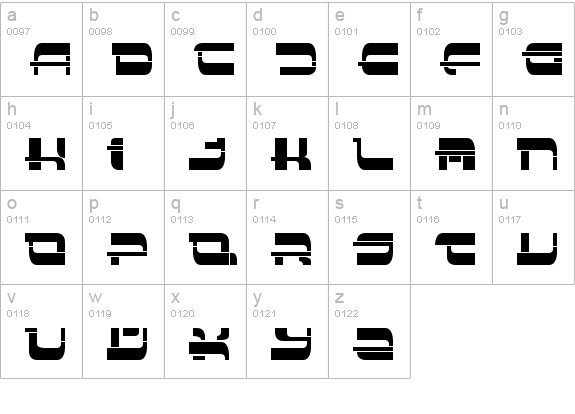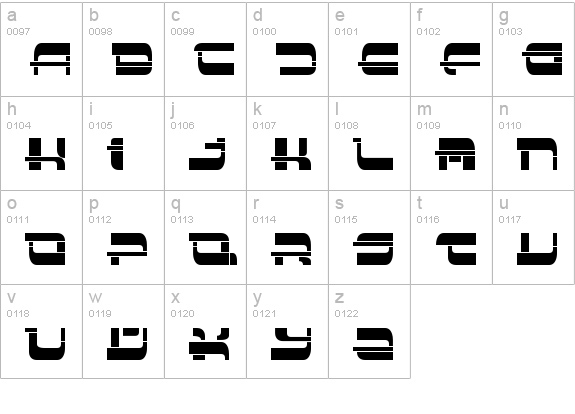
Insert 3 Font Details
Insert 3 font is a versatile and eye-catching typeface that will bring a touch of modernity to any design project. With its clean lines and bold style, this font is perfect for headlines, logos, posters, and more. Whether you're designing a website or creating a promotional banner, Insert 3 font will make a lasting impression. The best part? Insert 3 font is completely free! That's right, you can download this amazing font for absolutely no cost at FontsMarket.com. With just a few clicks, you'll have access to a high-quality typeface that will take your designs to the next level. Not only is Insert 3 font visually appealing, but it is also incredibly easy to use. Its well-crafted letterforms ensure legibility at any size, making it suitable for both print and digital designs. Whether you're a professional graphic designer or a beginner, this font will make your work stand out from the crowd. The versatility of Insert 3 font is truly remarkable. It comes in a variety of weights and styles, allowing you to experiment and find the perfect combination for your project. From thin and elegant to bold and impactful, this font has it all. So why wait? Download Insert 3 font for free today at FontsMarket.com and let your creativity soar. Whether you're designing a logo, creating a poster, or working on a website, this font will add a touch of sophistication and style to your work. Say goodbye to boring typography and hello to the beauty of Insert 3 font.